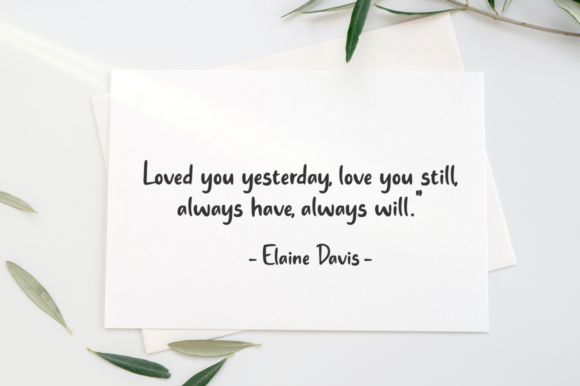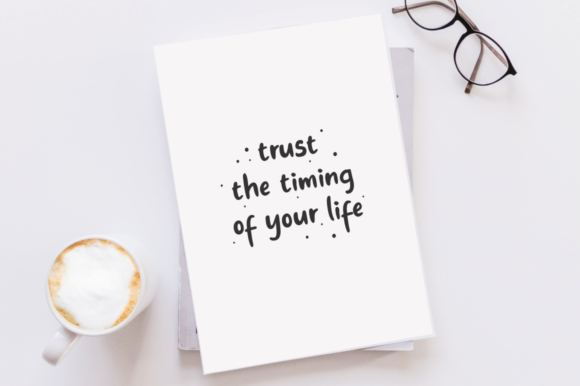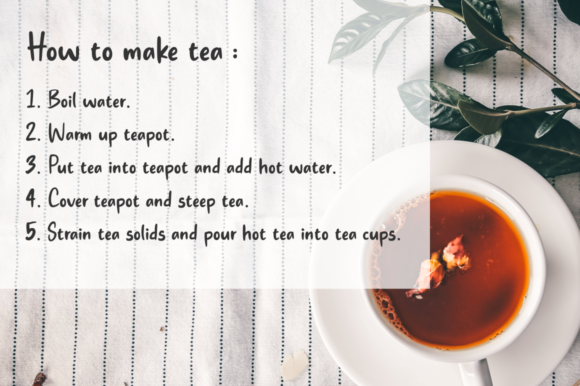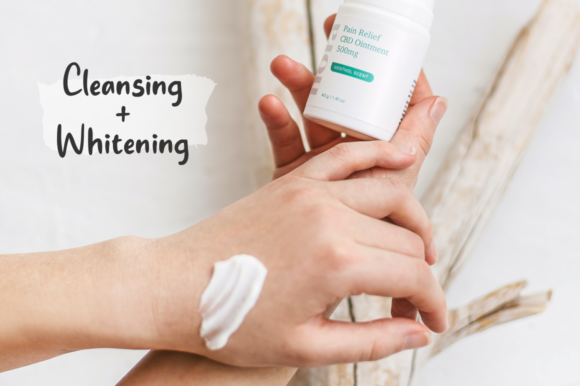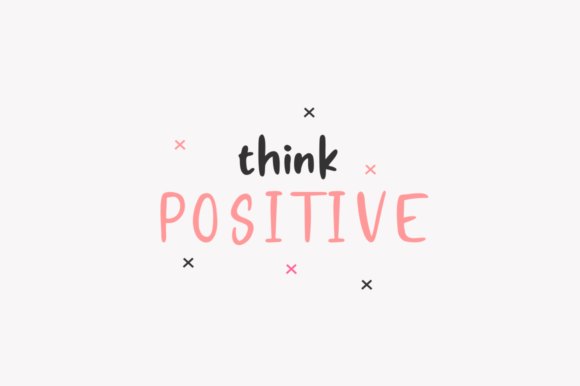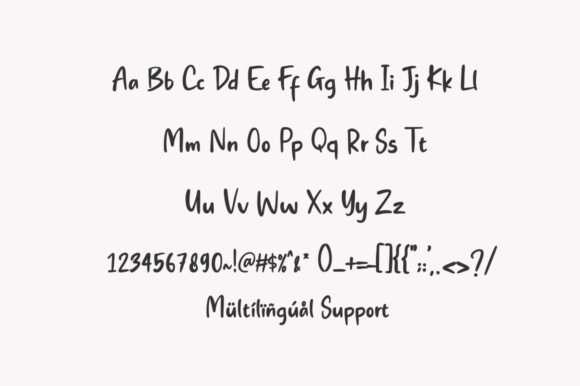
Introducing Always Lovely Font: The Perfect Handwritten Font for Designers and Crafters
Are you tired of using the same old fonts for your designs and crafts? Look no further! Always Lovely Font is a beautiful, handwritten font that is sure to add a touch of personality to your projects. With its natural and friendly vibe, this font is perfect for a wide range of applications, from crafting and digital designing to presentations and greeting cards.
What Makes Always Lovely Font So Special?
Always Lovely Font is a cute and trendy handwritten font that features the perfect amount of flair. Its unique and charming lettering style makes it stand out from other fonts, and its friendly and approachable feel makes it perfect for projects that require a personal touch.
Whether you’re a designer, crafter, or DIY enthusiast, Always Lovely Font is a great addition to your font collection. Its versatility and flexibility make it suitable for a wide range of projects, from:
- Crafting: Use Always Lovely Font to add a personal touch to your scrapbooking, journaling, and other paper crafting projects.
- Digital designing: Add a touch of warmth and personality to your digital designs, such as social media graphics, blog posts, and website headers.
- Presentations: Use Always Lovely Font to add a friendly and approachable tone to your presentations, making them more engaging and effective.
- Greeting cards making: Create beautiful and personalized greeting cards for special occasions, such as birthdays, weddings, and holidays.
Key Features of Always Lovely Font
Here are some of the key features that make Always Lovely Font a great choice for designers and crafters:
- Cute and natural design: Always Lovely Font features a unique and charming handwritten design that is both cute and natural.
- Perfect amount of trendiness: This font has just the right amount of flair and trendiness to make your projects stand out.
- High-quality characters: Always Lovely Font features high-quality characters that are clear and easy to read.
Tips and Inspiration for Using Always Lovely Font
Here are some tips and inspiration to get you started with using Always Lovely Font:
- Pair with other fonts: Always Lovely Font pairs well with other fonts, such as sans-serif fonts and script fonts. Experiment with different font combinations to find the perfect look for your project.
- Use for headings and titles: Always Lovely Font is perfect for headings and titles, adding a touch of personality and flair to your projects.
- Add embellishments: Use Always Lovely Font in combination with embellishments, such as stickers and die-cuts, to add extra interest and texture to your projects.
Always Lovely Font is a beautiful and versatile handwritten font that is perfect for designers and crafters. With its natural and friendly vibe, this font is suitable for a wide range of projects, from crafting and digital designing to presentations and greeting cards. Whether you’re looking to add a personal touch to your projects or simply want to try out a new font, Always Lovely Font is a great choice.